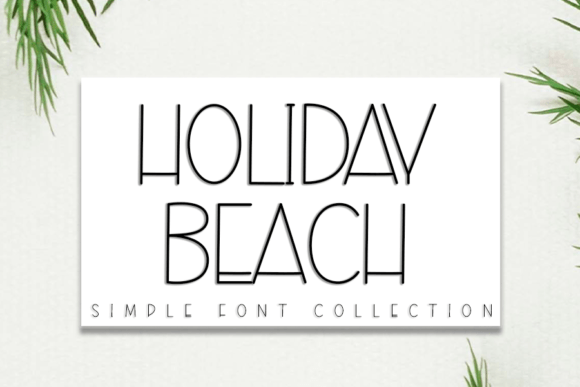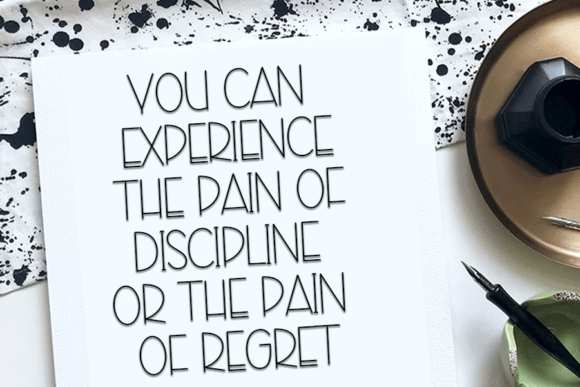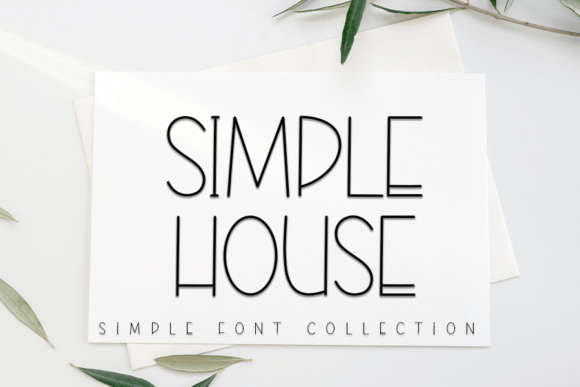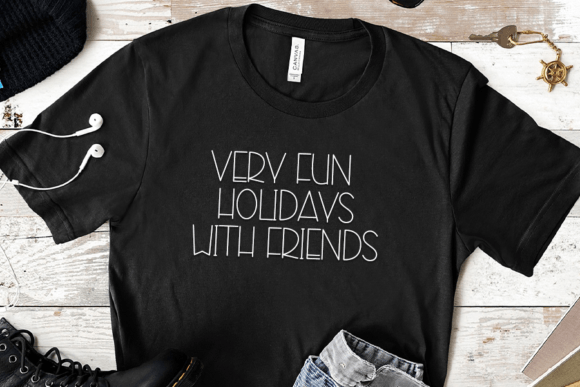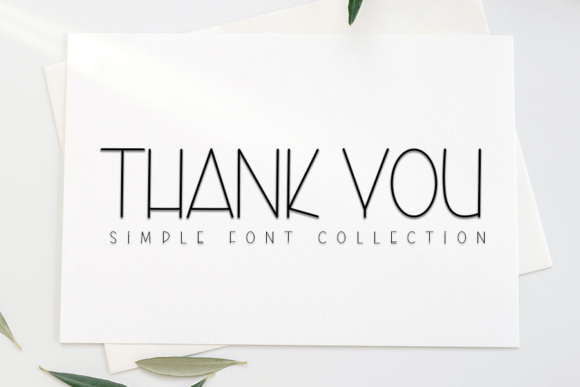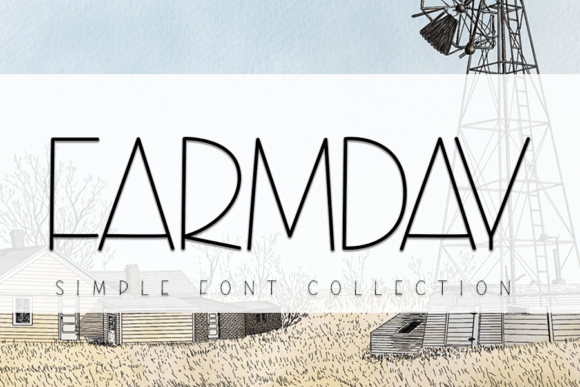
Introducing Farmday Font: The Modern Sans Serif for All Occasions
In the world of typography, a font can make all the difference in the aesthetic and tone of your design. For designers, crafters, and digital artists, finding the perfect font that suits various projects can be a daunting task. This is where Farmday Font comes in – a cool and modern sans serif font that’s versatile, stylish, and perfect for a wide range of applications.
What is Farmday Font?
Farmday Font is a contemporary sans serif font designed to cater to the diverse needs of designers, crafters, and digital artists. Its clean lines, simple shapes, and modern aesthetic make it an excellent choice for various projects, from crafts and digital design to presentations and greeting cards.
Key Features of Farmday Font
- Modern Aesthetic: Farmday Font boasts a sleek and modern design that’s perfect for those who appreciate simplicity and elegance.
- Sans Serif: The font’s sans serif style ensures that your text remains clear and readable, even at smaller sizes.
- Versatile: Farmday Font is suitable for a wide range of projects, including crafts, digital design, presentations, and greeting cards.
- Easy to Read: The font’s clean lines and simple shapes make it easy to read, even for extended periods.
Use Cases for Farmday Font
Farmday Font’s versatility makes it an excellent choice for various projects. Here are some use cases where this font shines:
- Crafts: Add a modern touch to your craft projects, such as handmade cards, scrapbooking, or DIY decorations.
- Digital Design: Use Farmday Font in your digital designs, including social media graphics, blog posts, or website headers.
- Presentations: Elevate your presentations with a clean and modern font that’s easy to read.
- Greeting Cards: Create beautiful and personalized greeting cards for special occasions.
Why Choose Farmday Font?
With so many fonts available, why choose Farmday Font? Here are a few reasons why this font stands out:
- Unique Aesthetic: Farmday Font offers a distinctive modern aesthetic that’s hard to find in other fonts.
- High Readability: The font’s clean design ensures that your text remains readable, even at smaller sizes.
- Flexibility: Farmday Font is suitable for a wide range of projects, making it an excellent addition to your font library.
Tips for Using Farmday Font
To get the most out of Farmday Font, here are some tips to keep in mind:
- Experiment with Sizes: Farmday Font looks great at various sizes, so experiment to find the perfect size for your project.
- Pair with Other Fonts: Combine Farmday Font with other fonts to create a unique and visually appealing design.
- Use in Combination with Images: Pair Farmday Font with high-quality images to create stunning visual content.
Farmday Font is a modern sans serif font that’s perfect for designers, crafters, and digital artists. Its versatility, readability, and unique aesthetic make it an excellent choice for various projects. Whether you’re creating crafts, digital designs, presentations, or greeting cards, Farmday Font has the potential to become your go-to font. So why not give it a try and see how it can elevate your designs?